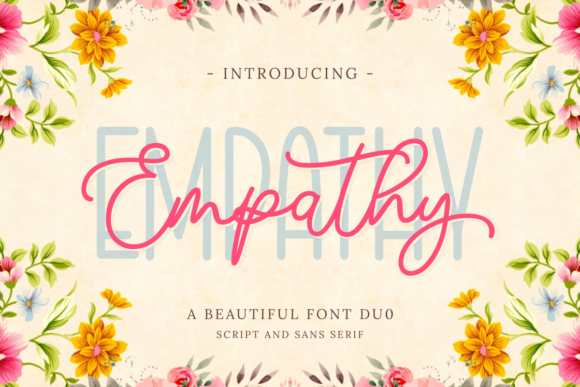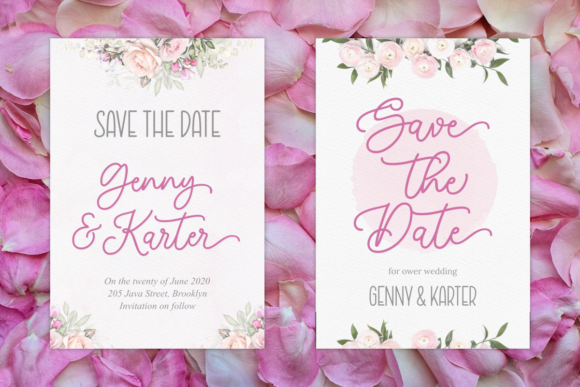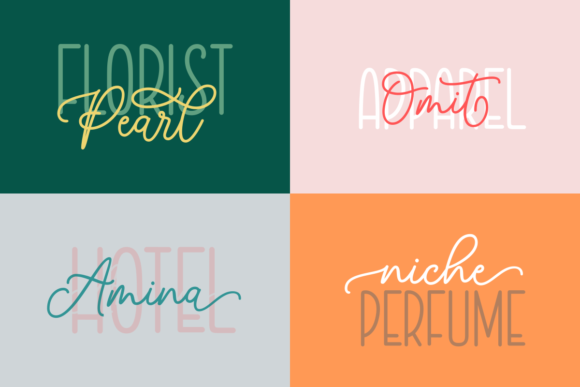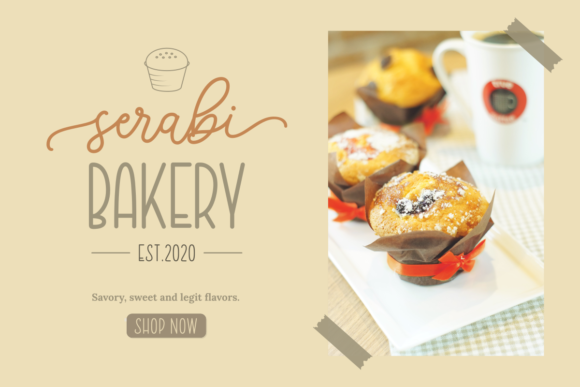
Empathy Duo Font
About the Empathy Duo Font
Elevate your designs with Empathy Duo Font, a font that combines sophistication with readability. Empathy is a beautiful and modern duo font. It combines a cute script with a great sans serif. Combining these two fonts on your next design will give a versatile and outstanding feel. This font is PUA encoded which means you can access all of the cute glyphs and swashes with ease! It also features a wealth of special features including alternate glyphs and ligatures.
Empathy Duo excels in projects requiring a touch of friendly modernity—think branding for boutiques, invitations, or short-form editorial design. The script is ideal for logos and headlines, while the sans serif provides excellent readability for short blocks of supporting text. Avoid using it for large bodies of text or UI elements where legibility is paramount.
Consider pairing the script with a clean geometric sans-serif for a contemporary feel, or a classic serif for a touch of timeless elegance. A playful, rounded sans-serif could also create a balanced and approachable aesthetic. Avoid pairing it with other highly decorative or overly stylized fonts; simplicity will allow Empathy’s unique charm to shine.
The overall personality is approachable and stylish, conveying a sense of both sophistication and warmth. Its versatility makes it a valuable addition to any designer’s toolkit, but thoughtful pairing and application are key to maximizing its impact.
Empathy Duo Font Usage Examples
Empathy Duo Font Example